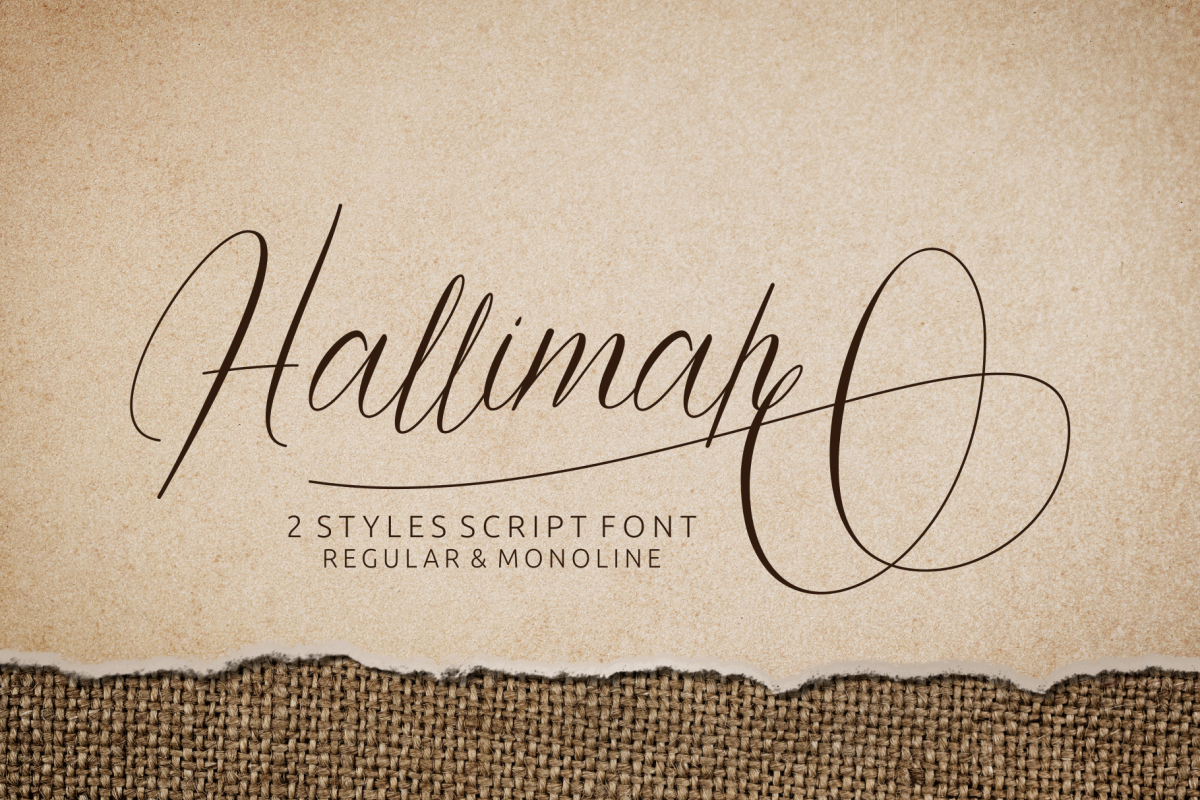
Hallimah Script Font
Hallimah Monoline
Hallimah
Hallimah! A script font with 2 styles, regular and monoline. Hallimah font is perfect for branding, product packaging, quotes, flyer, poster.
1. Uppercase and lowercase characters
2. Supports international languages
3. Numerals, punctuations, ligatures, 7 style of stylistic sets